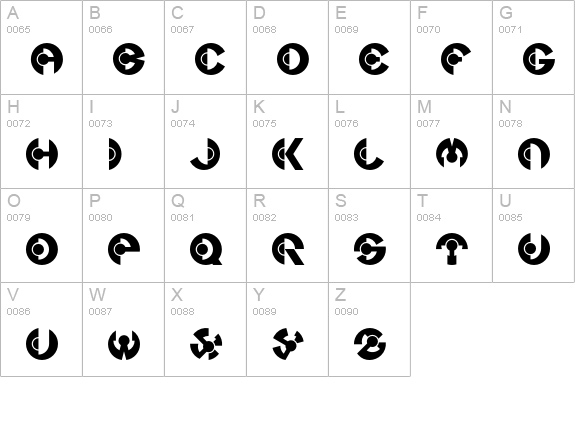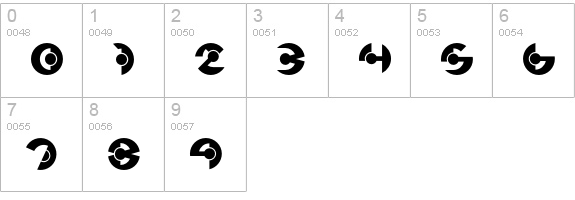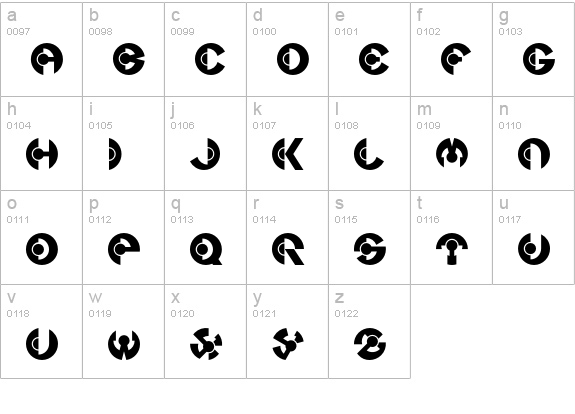
Nucleus Font Details
Nucleus font is a sleek and modern typeface that exudes sophistication and elegance. Its clean lines and balanced proportions make it perfect for a wide range of design projects, from branding to editorial layouts. With its versatile design, Nucleus font can easily adapt to both digital and print mediums, making it a go-to choice for designers looking for a timeless and contemporary look. The best part? Nucleus font is available for free download at FontsMarket.com, where you can access this beautiful typeface without any cost. Don't miss out on the opportunity to enhance your design projects with the stylish and versatile Nucleus font, now just a click away for your creative endeavors.